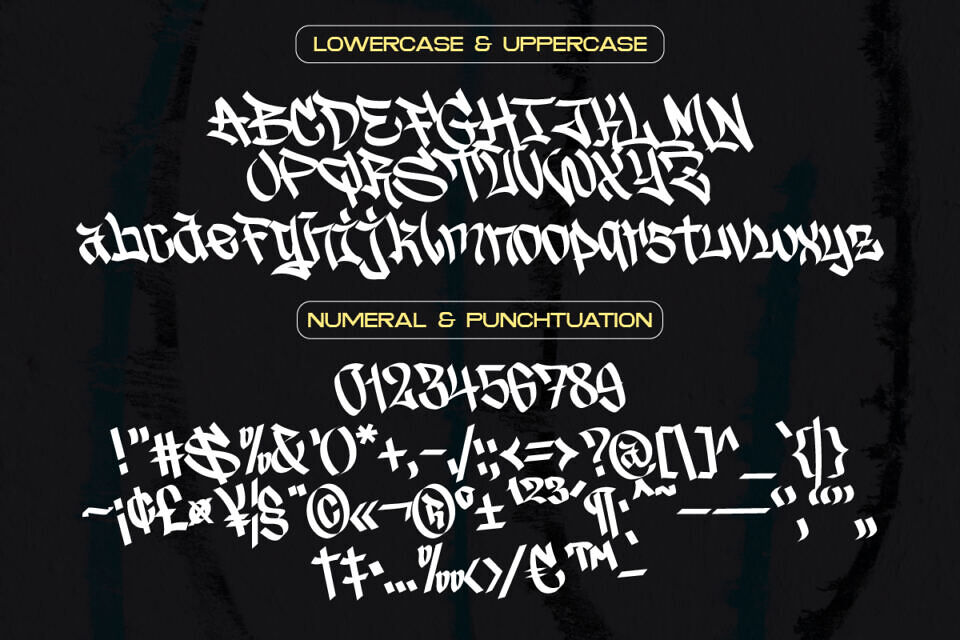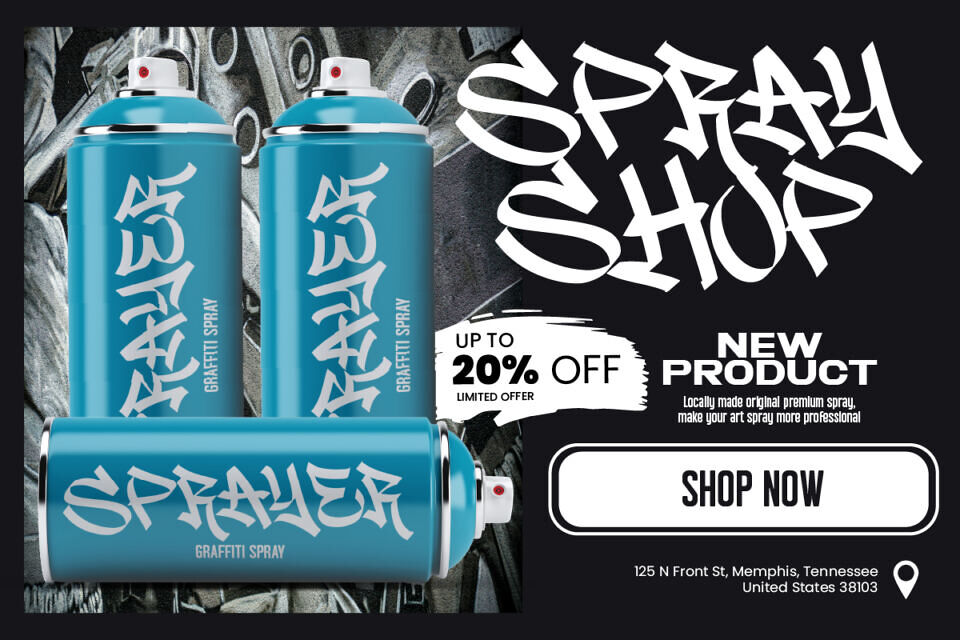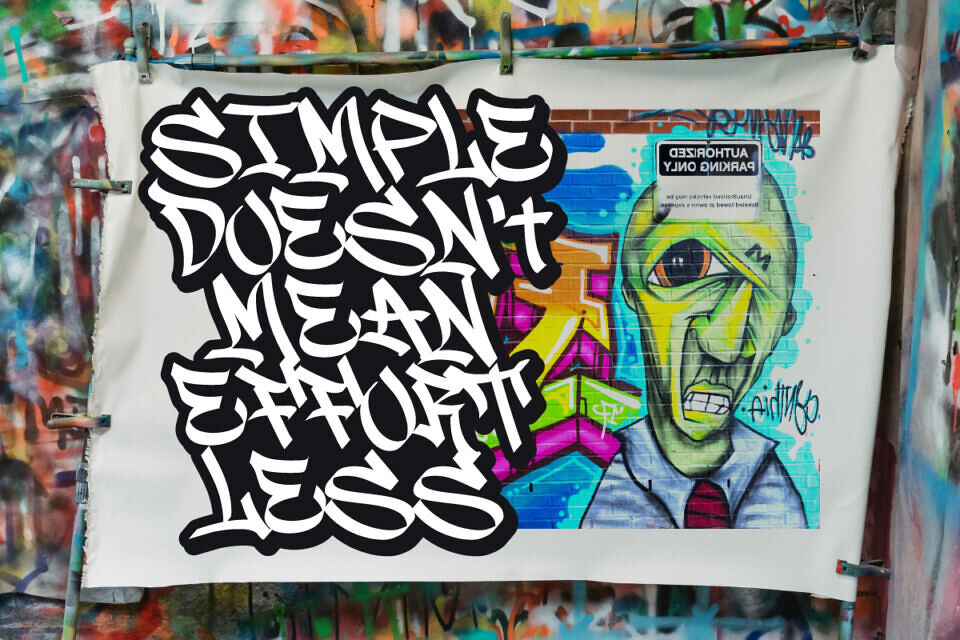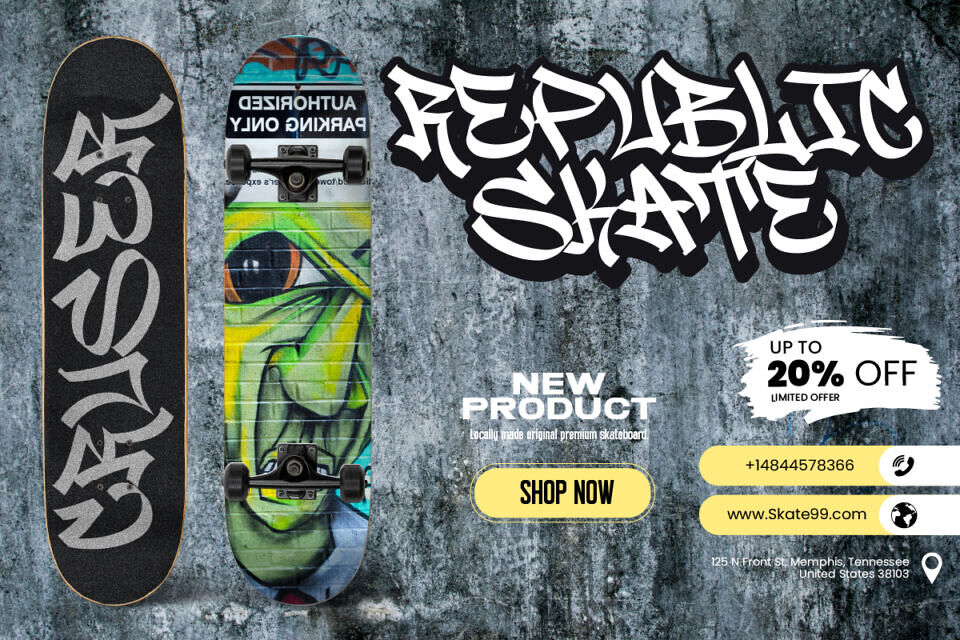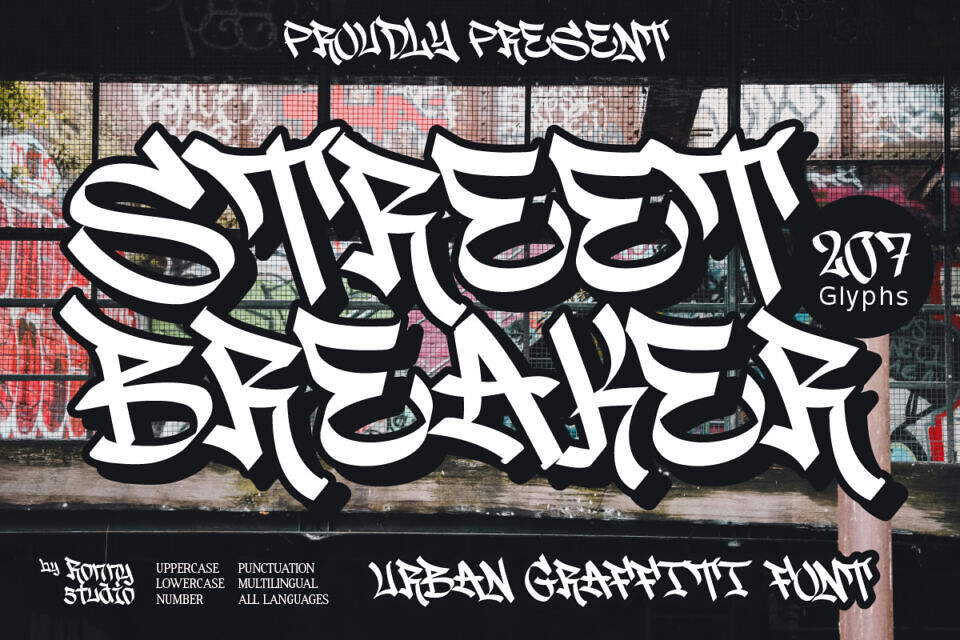
Street Breaker Font
Street Breaker is a flexible and stylish graffiti font, perfect for adding an urban touch to your designs. With an authentic street feel, this font is inspired by graffiti art and offers a bold and dynamic character. Street Breaker are ideal for those of you who want to integrate urban spirit into your creative work.
This font is suitable for various types of designs that want to display an urban and street art feel, such as: Posters and Flyers, Branding and Logos, Apparel Designs, Social Media, Album Covers and Film Posters, Graffiti and Murals.